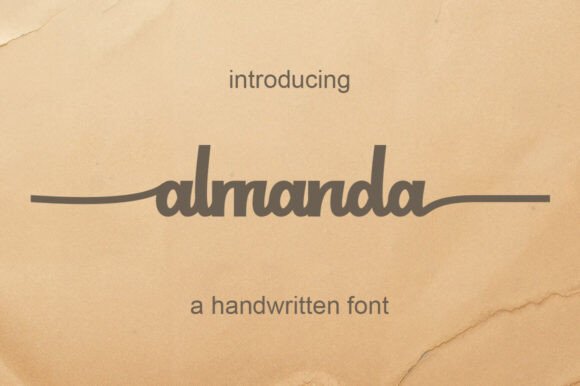
The Magical World of Almanda Font
Have you ever been in the middle of a design project, and suddenly, it all comes down to finding that perfect font? I certainly have! It was a typical Wednesday morning when I received a message from a client asking for a logo design with a “quirky yet elegant” vibe. As I began brainstorming, I stumbled upon the enchanting Almanda Font. Little did I know, it would become my new obsession!
First Impressions: A Love Letter to Almanda
As soon as I opened the font in my design software, I knew I was in love! Almanda is a beautiful script font that exudes elegance and playfulness. Its unique charm makes it perfect for a wide range of projects, from logos and branding to quotes, clothing, tote bags, business cards, websites, and many more.
The best part? Almanda is PUA encoded, which means you can access all the glyphs and ligatures with ease! No more tedious searching for the perfect character – it’s all right there at your fingertips.
• ✨ Elegant and playful script font perfect for creative projects
• ✅ PUA encoded for easy access to glyphs and ligatures
• 💫 Highly versatile – use it for logos, branding, quotes, and more
• 🎨 Beautifully crafted with attention to detail
• ⚠️ Some users might find the font a bit too ornate for certain projects
• 🤔 Limited use for body text due to its script nature
The Story Behind Almanda: A Glimpse into the Designer’s Inspiration
The story behind Almanda begins with a passion for elegant, handwritten typography. The designer, inspired by classic calligraphy and modern script fonts, aimed to create a unique and enchanting font that would capture the hearts of designers and creative hobbyists alike. With Almanda, they succeeded in crafting a font that’s both beautiful and versatile.
A: PUA (Private Use Area) encoding allows font users to access a wide range of glyphs and ligatures, making it easier to create unique and creative designs.
Q: Is Almanda suitable for body text?
A: Due to its script nature, Almanda is best suited for headlines, titles, and short paragraphs. For body text, consider using a more traditional font.